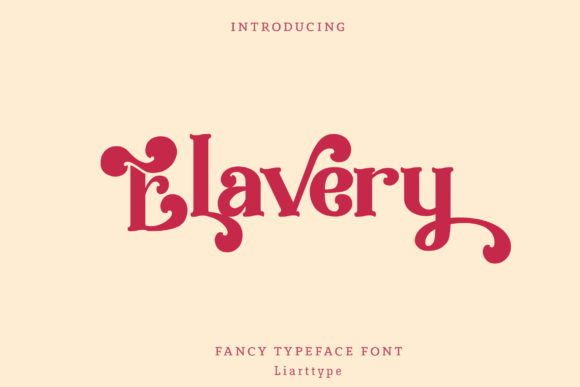
Are you a music artist looking to create a cover that exudes a touch of nostalgia, a hint of whimsy, and an undeniable sense of confidence? Look no further than Elavery, the remarkable serif font crafted by the talented designers at Liarttype. This font is not just a collection of letters; it's an invitation to express your individuality through captivating typography.
Elavery's strong and confident strokes command attention, while its dynamic curves add a touch of playfulness and movement. This font reads as bold, assertive, and distinctive, making it the perfect choice for those seeking to make a statement. Whether you're designing a cover for your latest album, creating promotional materials for your upcoming tour, or simply seeking a font that exudes personality, Elavery has got you covered.
With Elavery, you can effortlessly evoke a sense of nostalgia in your designs. Its classic serif style harkens back to a time when music was raw, unfiltered, and full of soul. This font carries the weight of history, allowing you to infuse your work with a timeless quality that will resonate with audiences of all generations.
But Elavery is not just about nostalgia. It is a font that embraces the present and looks towards the future. Its dynamic curves and confident strokes create a sense of movement and energy, perfectly capturing the essence of contemporary music. This font is ideal for artists pushing the boundaries of their genre, exploring new sounds, and creating music that challenges the status quo.
Elavery is more than just a font; it's a creative tool that empowers you to tell your musical story in a unique and captivating way. Its versatility extends beyond music-related projects. Use it to create eye-catching posters, stunning logos, or memorable branding materials. Elavery is the perfect choice for any design project where you want to make a lasting impression and leave your audience wanting more.